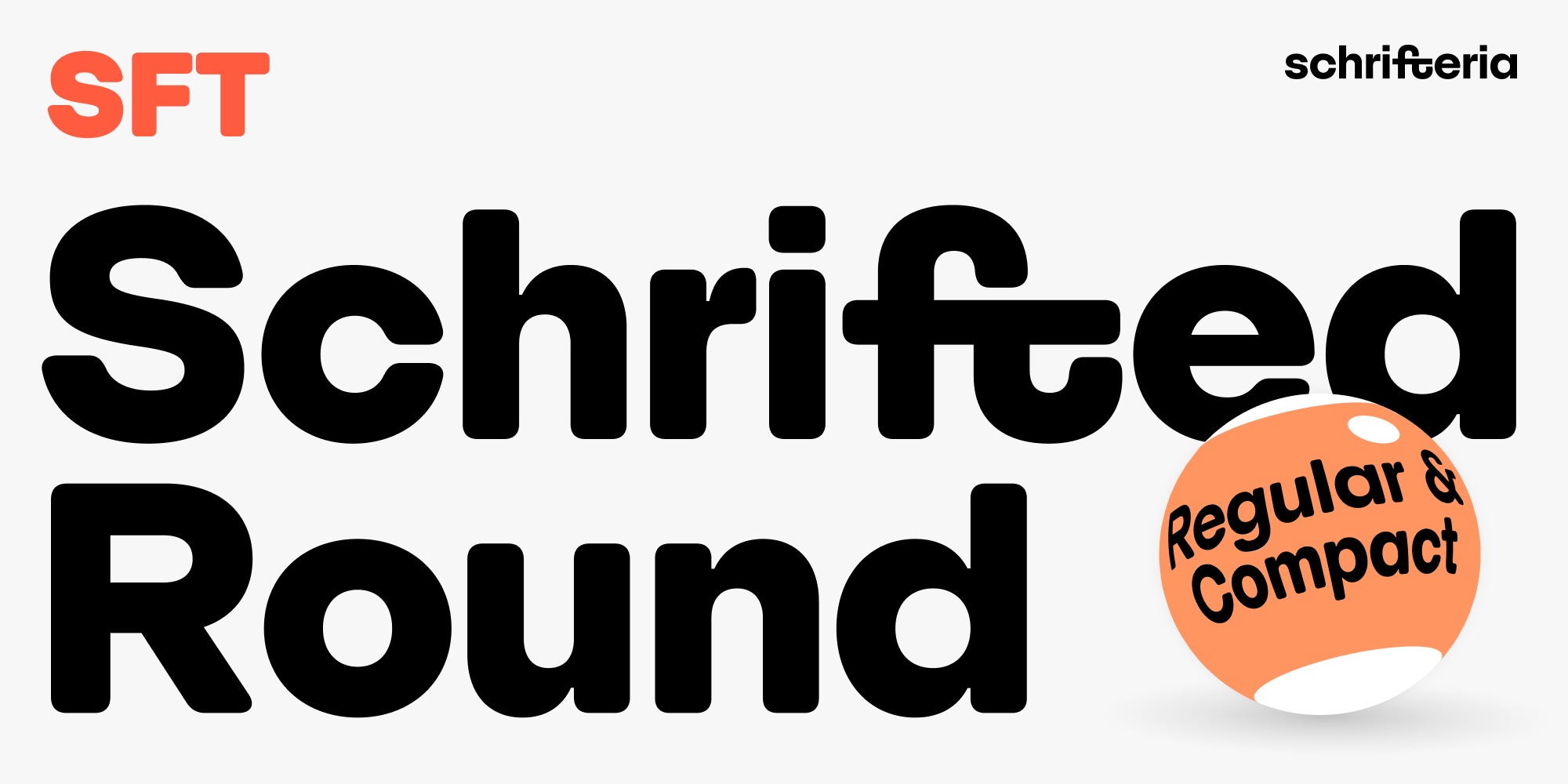
SFT Schrifted Round Font Family
SFT Schrifted Round Font Family is a premium-quality font developed to enhance your work with a polished, modern, and visually elevated look. SFT Schrifted Round is a geometric sans with softened edges, clear and inviting at a glance. Concept SFT Schrifted Round takes the rational framework of SFT Schrifted Sans and softens it with rounded corners and smoother contours. The goal is a modern, minimalist voice that keeps precision intact while adding a touch of warmth. It’s built for real work — interfaces, packaging, wayfinding, editorial — where typography needs to solve problems cleanly without feeling cold. The family offers enough range to set calm, efficient text and, when needed, bring more character to expressive headings. Graphics Visually, SFT Schrifted Round translates crisp geometry into tactile shapes. Corners are softened, and proportions remain generous for comfortable reading on screens and in print. The rounding is purposeful rather than decorative — it smooths rhythm, balances texture, and adds a subtle human presence to grids and systems that value precision. Family The core appearance is a rounded geometric sans with thoughtful spacing and optical balance. In lighter weights it reads as clean and unobtrusive; in bold styles it becomes confident and expressive. Use default styles for dependable text, then unlock stylistic sets to introduce a more distinctive headline voice. Figure options and OpenType features support editorial and data-heavy layouts, so one family can carry both the informative and the expressive parts of a design.